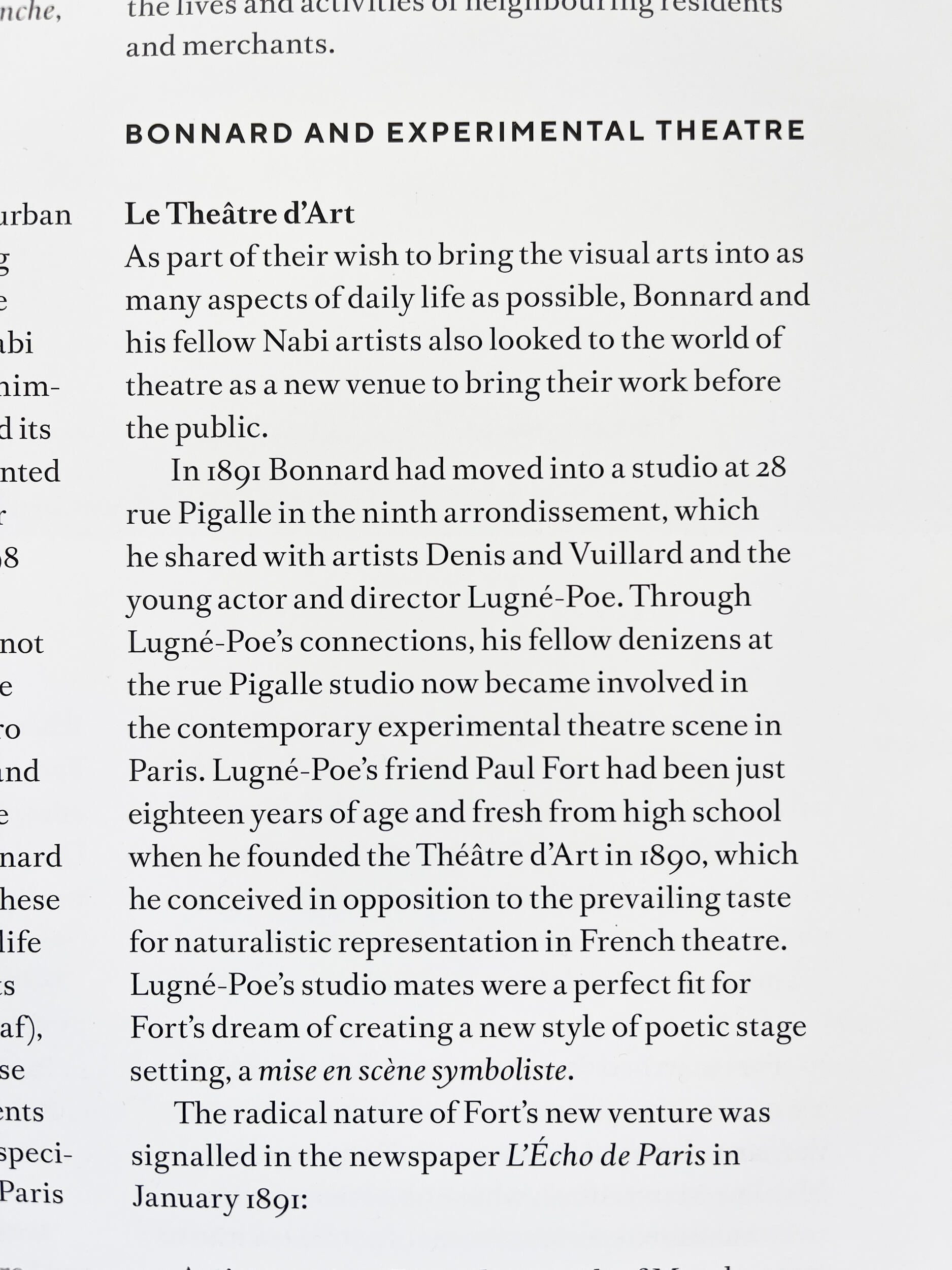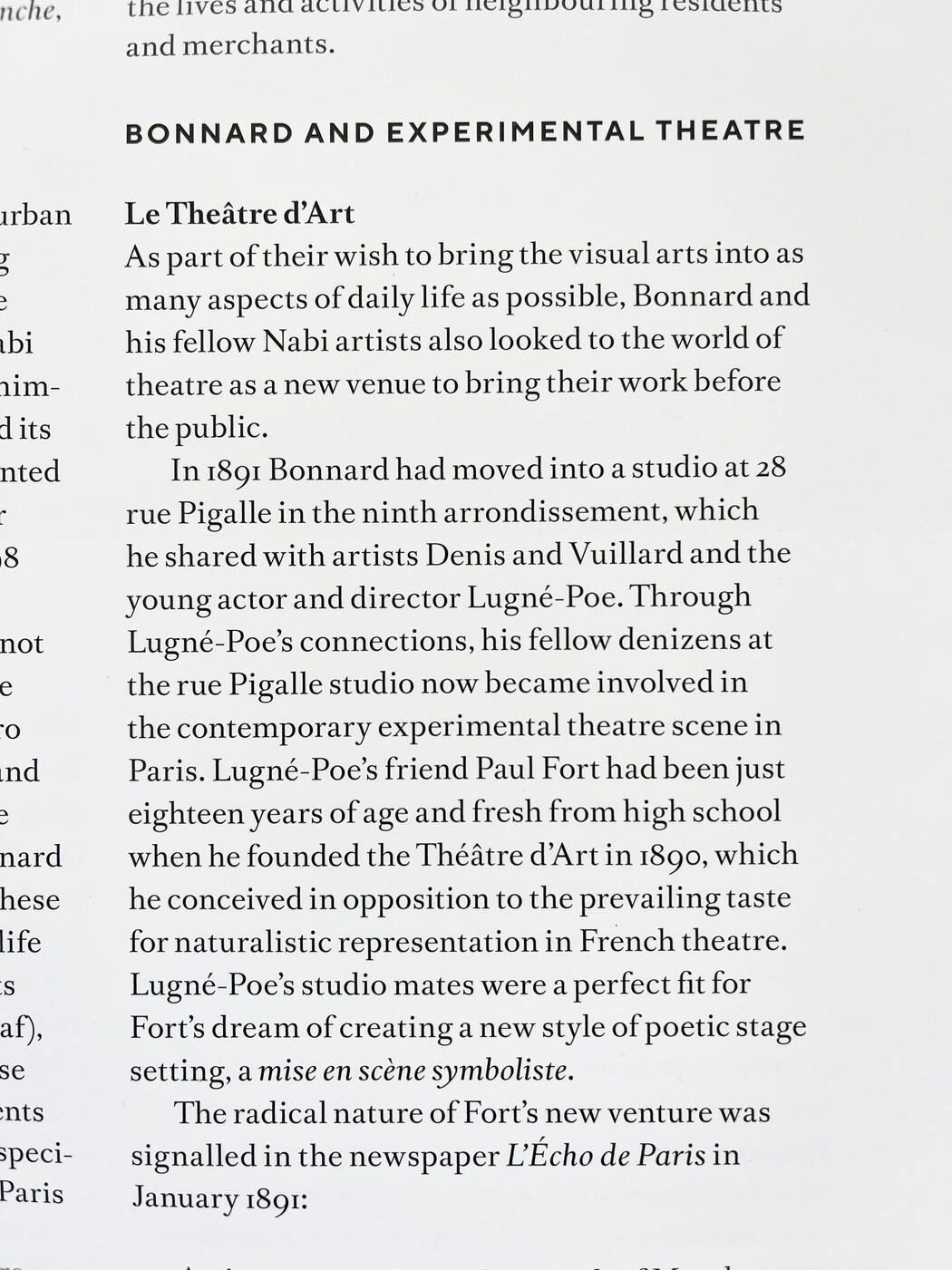
Need to match fonts used in body copy of 'Bonnard' Art Publication
I am wanting to match the fonts used in the book titled Pierre Bonnard. Produced for exhibition at the NGV in Melbourne Australia. Primarily the serif faces but also the sans serif sub heading font id would be great too. Thank you!
Thanks Kevin. That's a shame they discontinued the text styles. The reworked font a bit too tricky for text. Good to know re. TT Norms though 👍🏼😃